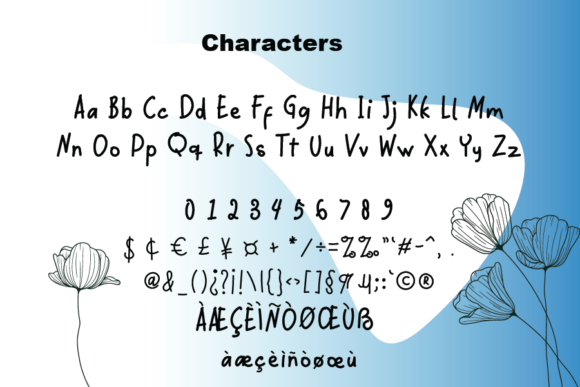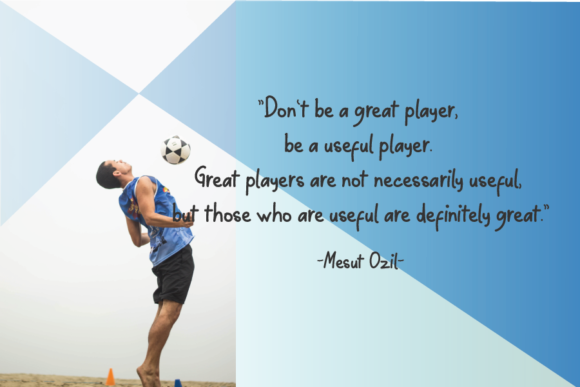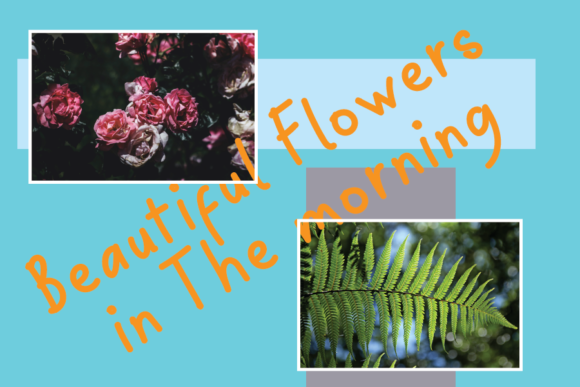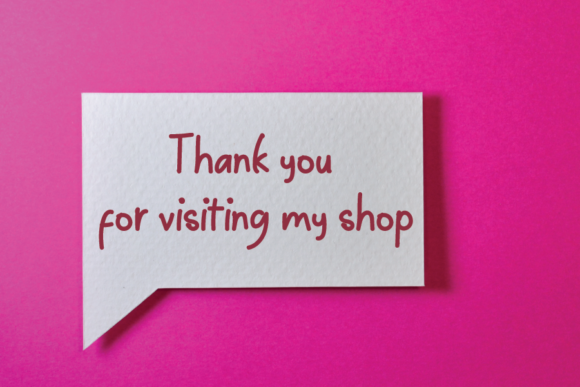
Sunday Morning Font
About Sunday Morning Font
Sunday Morning is an simple, natural and dainty handwritten font that features sweet and delicate swashes. This original look will appeal to a wide range of crafty ideas, from letterheads and titles, to stationery.